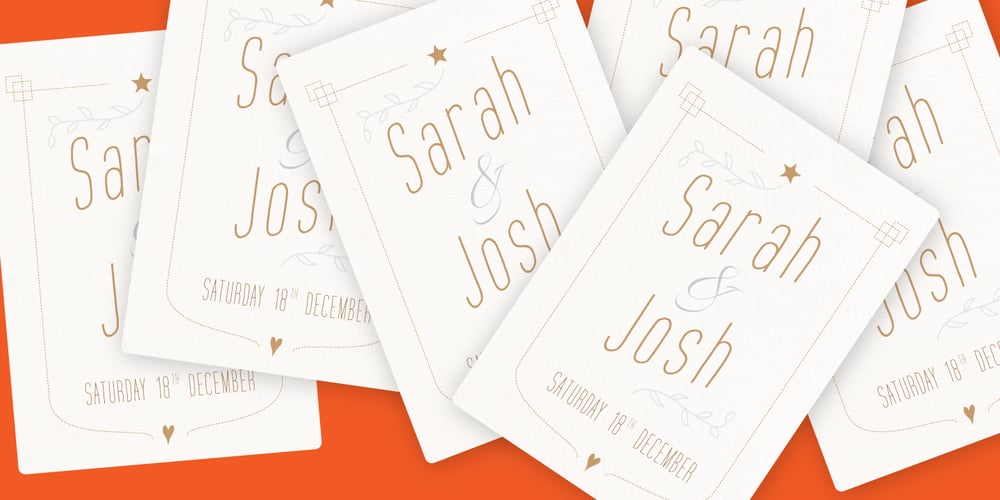
Montana Font Family was designed by published by Resistenza. Montana contains 7 styles and family package options. Montana is an elegantly playful handwritten font family with separate fonts for icons and illustrations included. This font is based on tight, condensed Grotesk typefaces, combining geometry and legibility with the originality of handwritten strokes. The result is a fresh font family perfect for headlines, typographic posters, t-shirts, food packaging and other print works. Its optimized legibility, simple structure and low contrast was made to perform excellently with e-books and mobile apps in mind.